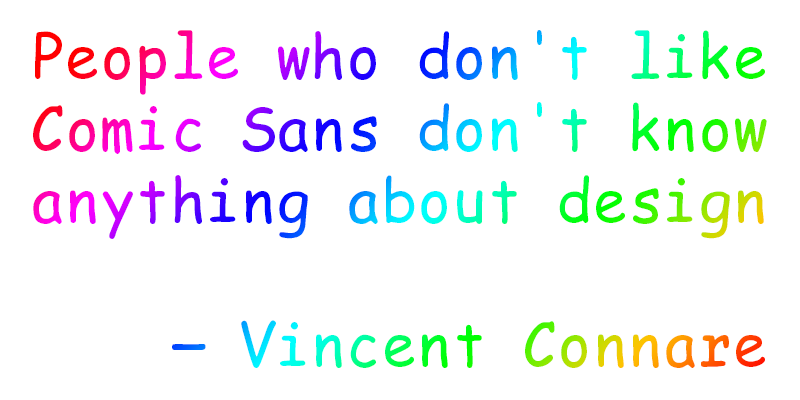
For all the programmers out there! This is a custom bootleg monospace version of Comic Sans called Koomik Mono. We incorporated a three-step process to create the typeface: 1) The original characters were manually squeezed to fit the uniform 600-point monospace letter width. 2) The character set was then printed out and optically adjusted by hand to achieve consistent thickness of the letterforms, and occasional serifs were added. 3) The adjusted character set was scanned back in and digitally retraced in Illustrator and compiled in Glyphs, resulting in a completely redrawn typeface, yet still recognizably Comic Sans. You're welcome ;) |